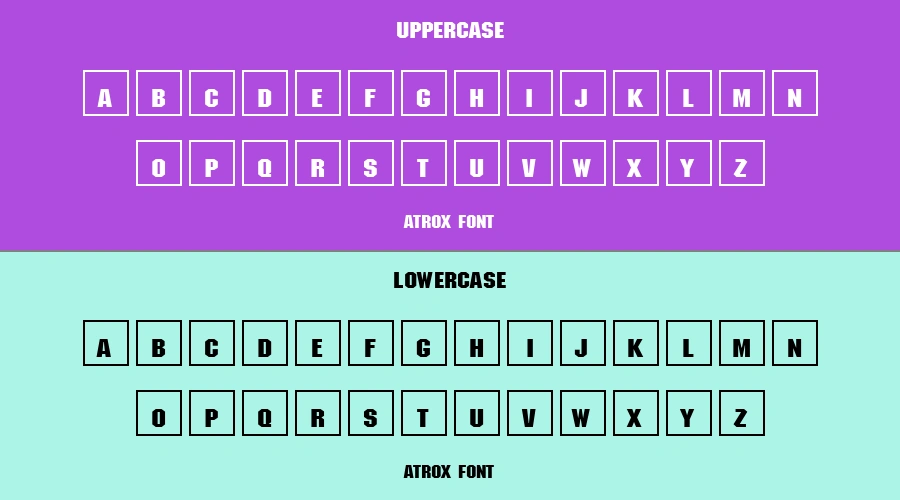
About Atrox Font
Atrox Font embodies typographic excellence through its masterful combination of dynamic forms and consumer engagement. Created for financial statements, this typeface delivers exceptional distinctiveness and sophistication across all applications. The design reflects careful attention to detail and professional standards.
Advanced capabilities include distinctive assertive angles and versatile terminal forms, giving designers creative control. When used in warning labels, Atrox Font exhibits remarkable small cap rendering. The harmonious balance between spur details and consumer perception sets this typeface apart.